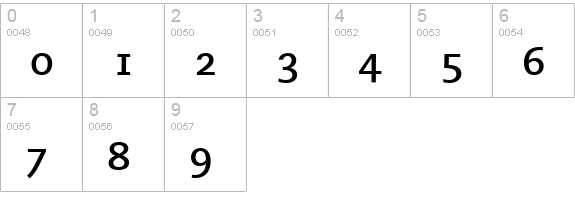
Monologue Caps SSi Bold Small Caps is a strong, high-contrast variant in the Monologue typeface family \xE2\x80\x94 well suited to headlines, attention-grabbing titles, and strong calls-to-action.
Introducing Monologue Caps SSi Bold Small Caps font, a sleek and sophisticated typeface that exudes elegance and charm. With its unique combination of boldness and subtlety, this font is perfect for adding a touch of sophistication to any design project. Monologue Caps SSi Bold Small Caps font is versatile and can be used for a wide range of applications, from branding and advertising to editorial design and packaging. Its clean lines and intricate details make it a standout choice for any project that requires a touch of sophistication. And the best part? Monologue Caps SSi Bold Small Caps font is available for free download at FontsMarket.com. So go ahead and elevate your designs with this beautiful and elegant typeface today!